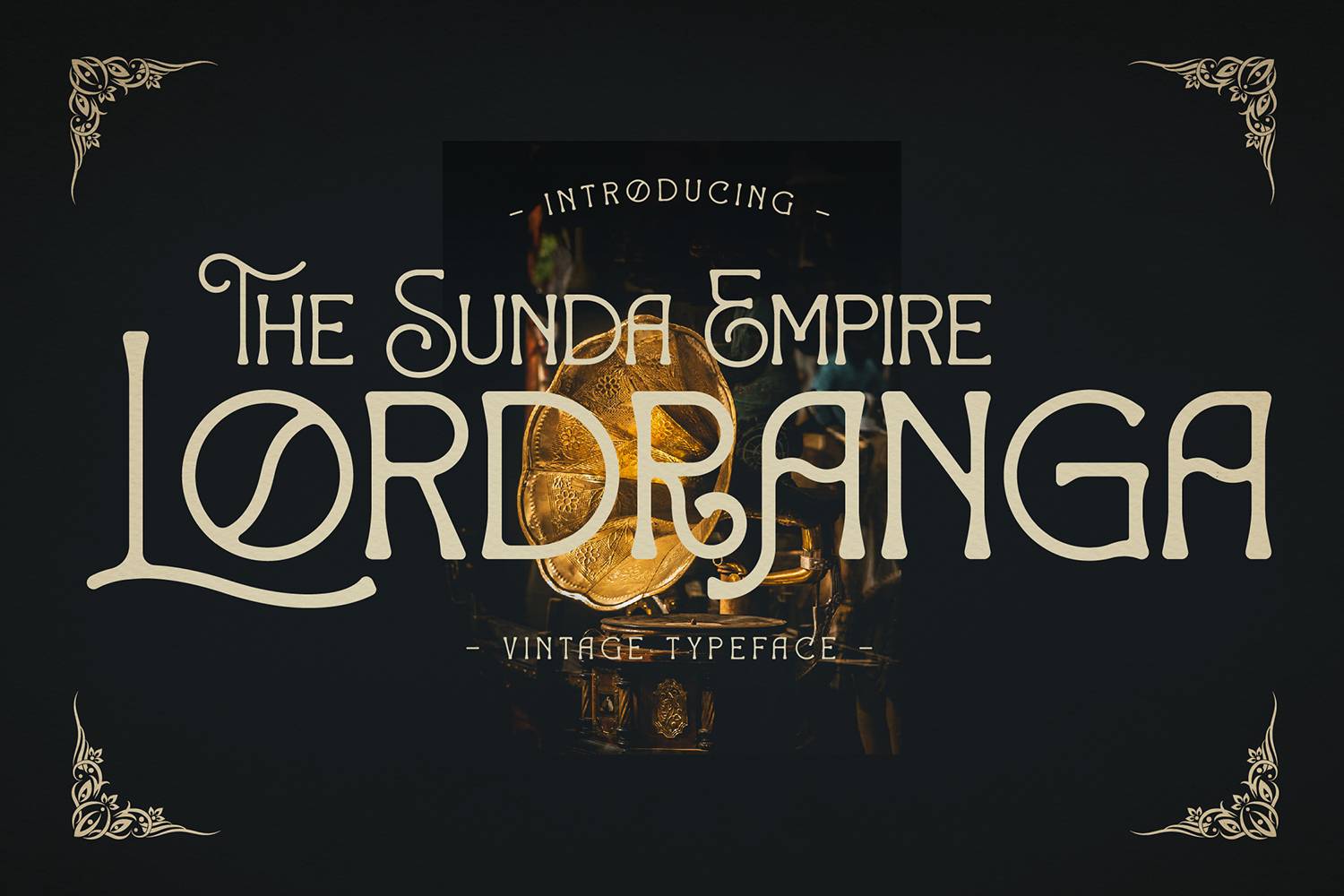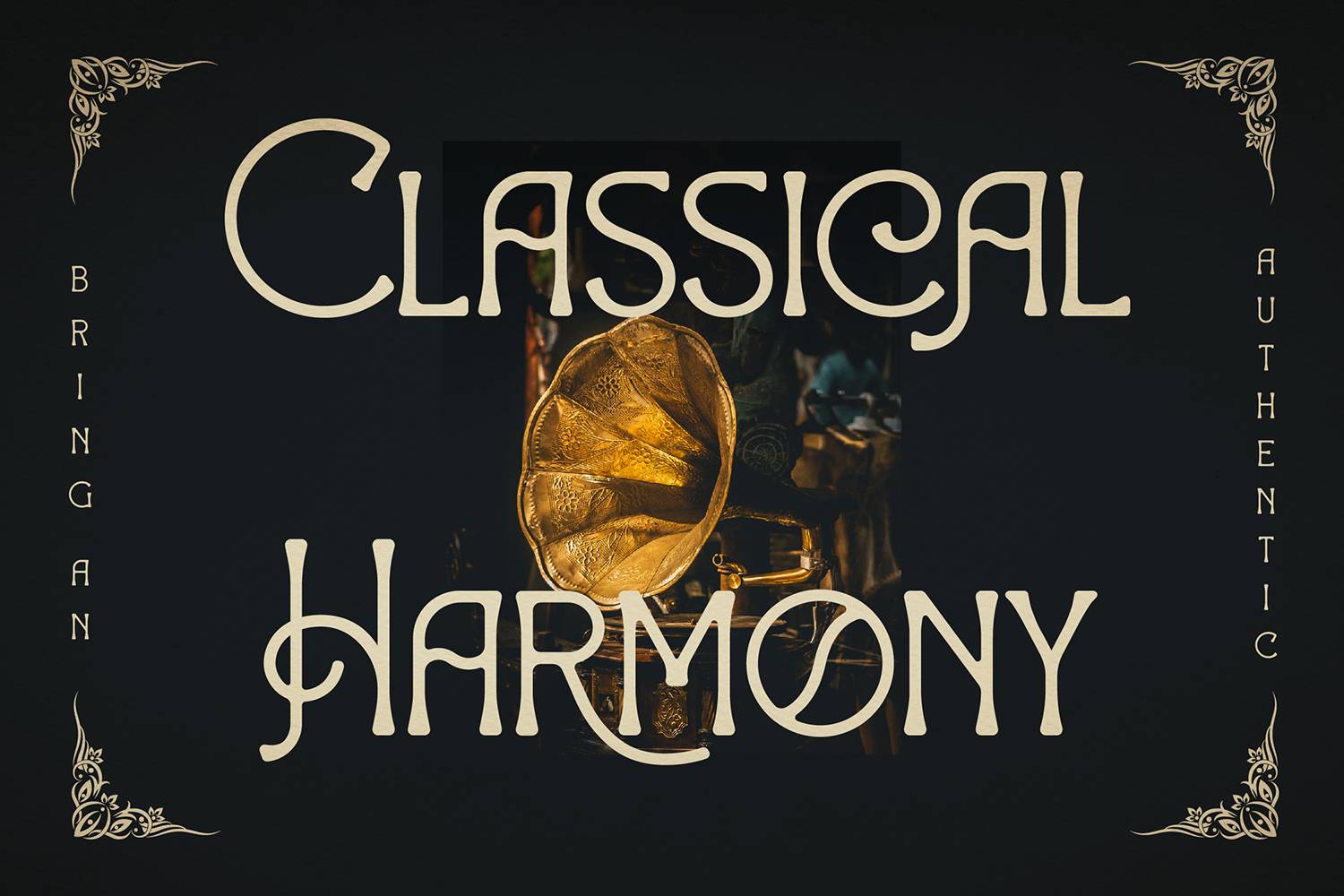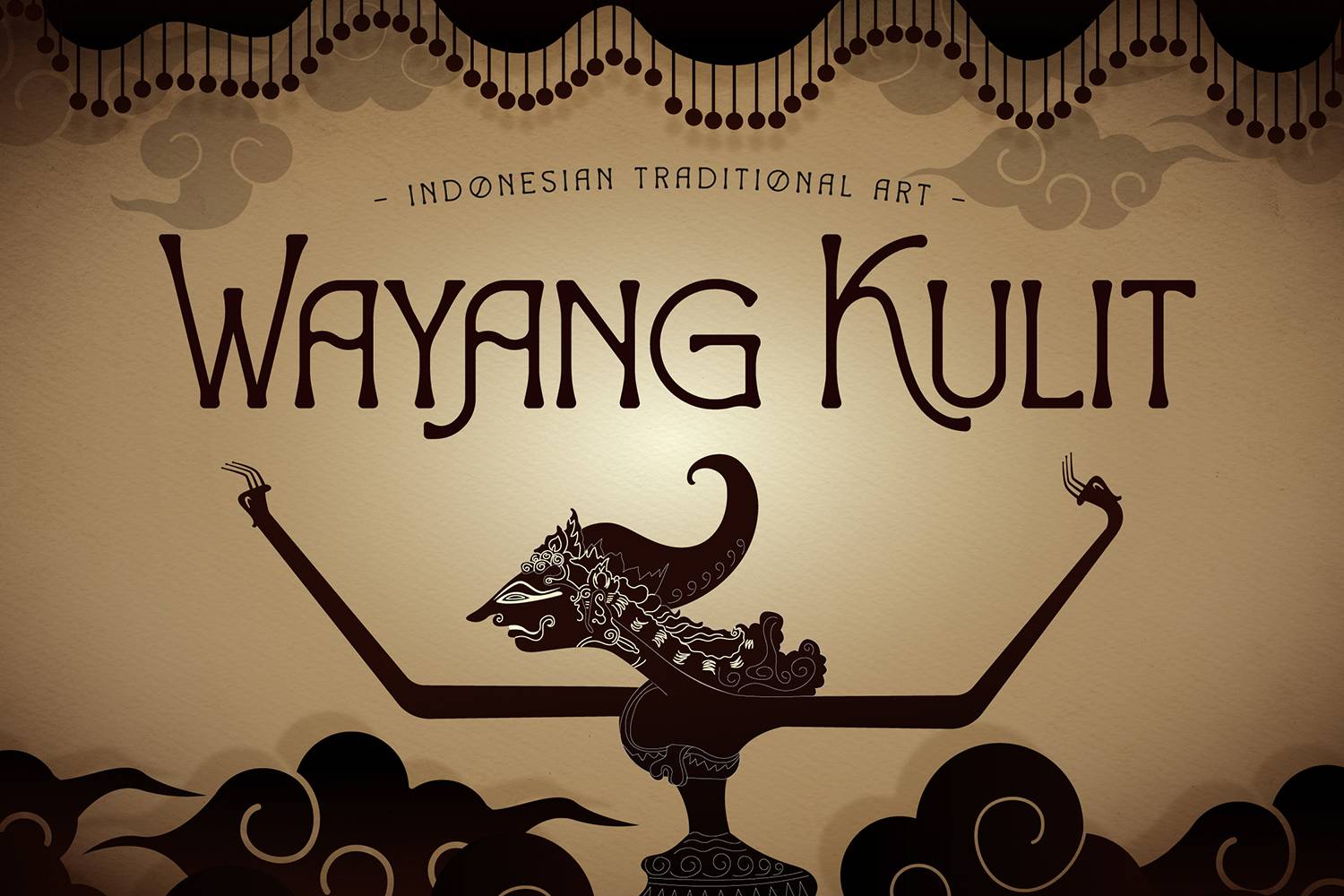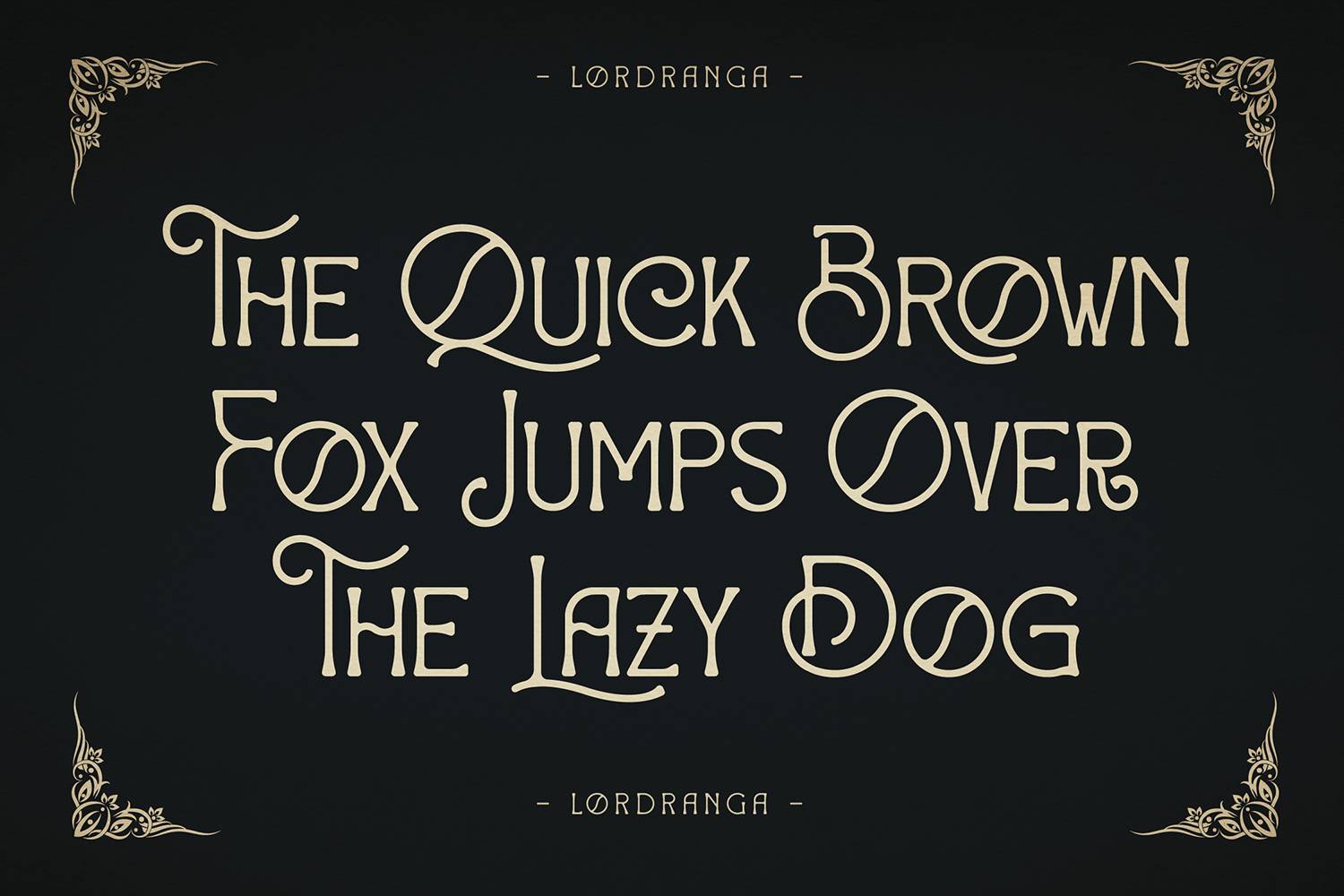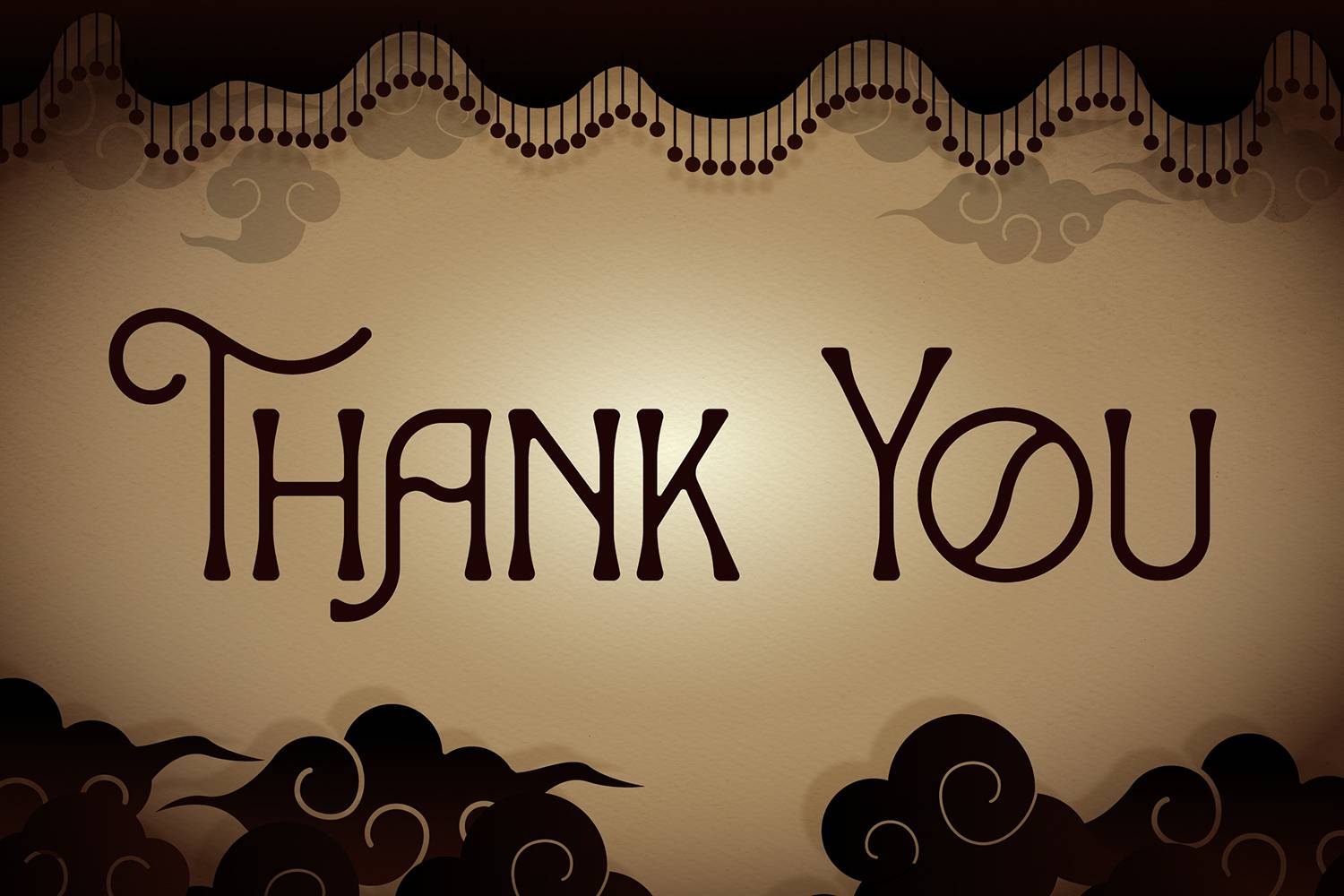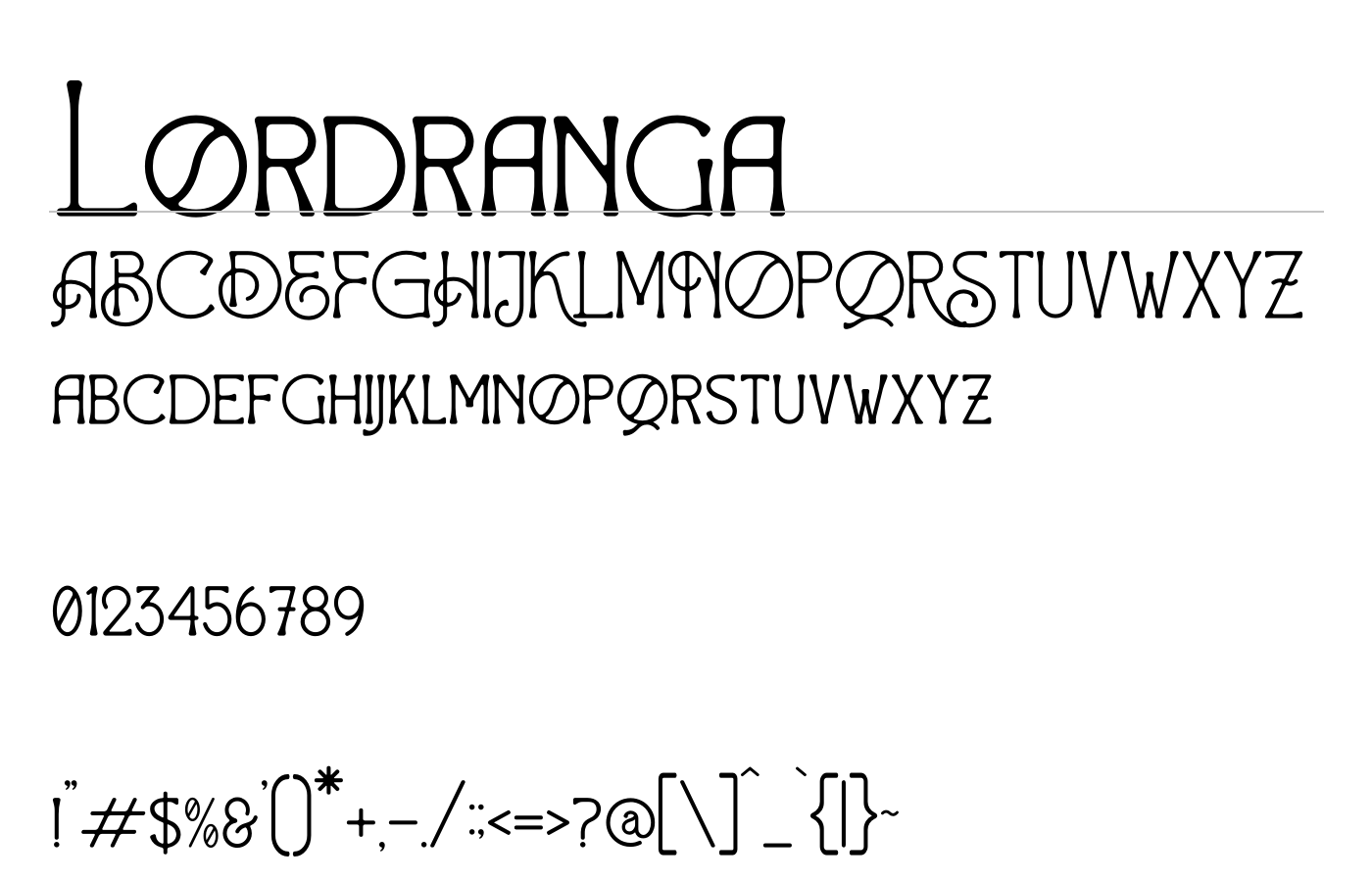
Lordranga is a distinctive serif font with a vintage and artistic flair, featuring thin strokes and elegant, slightly condensed letterforms. Its playful, stylistic details—such as the unique diagonal strokes in letters like O and Q—give it a handcrafted, sophisticated personality perfect for creative branding and editorial projects that want a touch of historical charm with modern uniqueness. This font works well in logos, headlines, and decorative uses where its intricate design can stand out without overwhelming the reader.
Lordranga Font